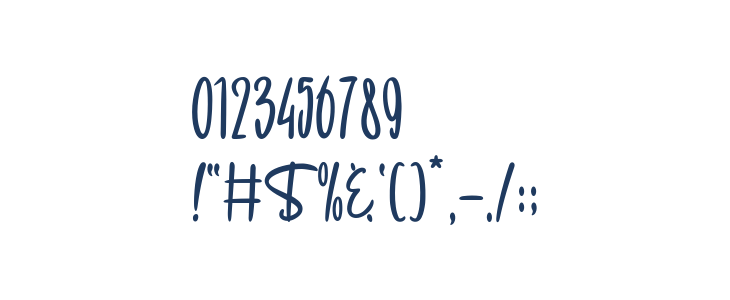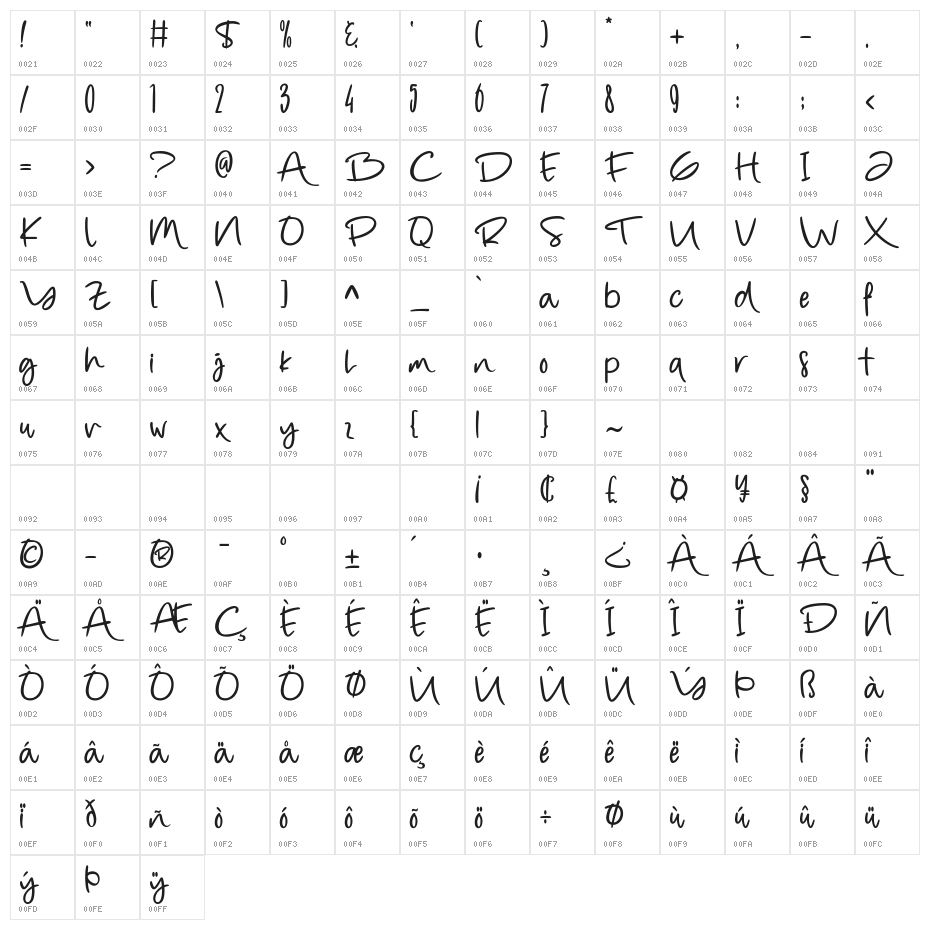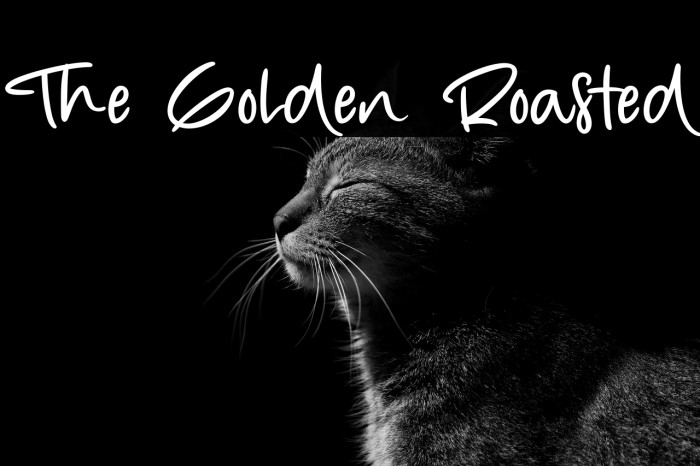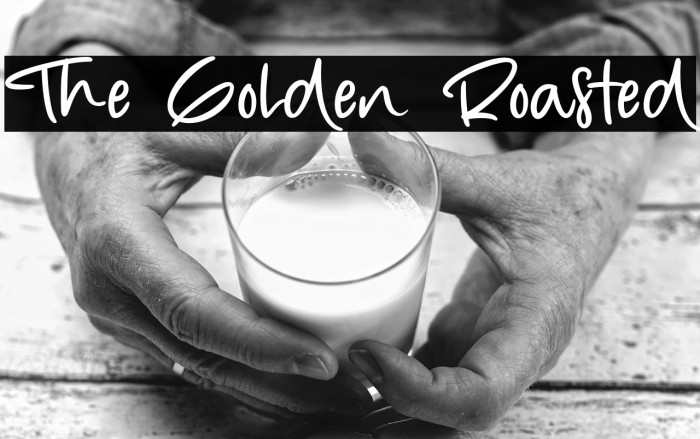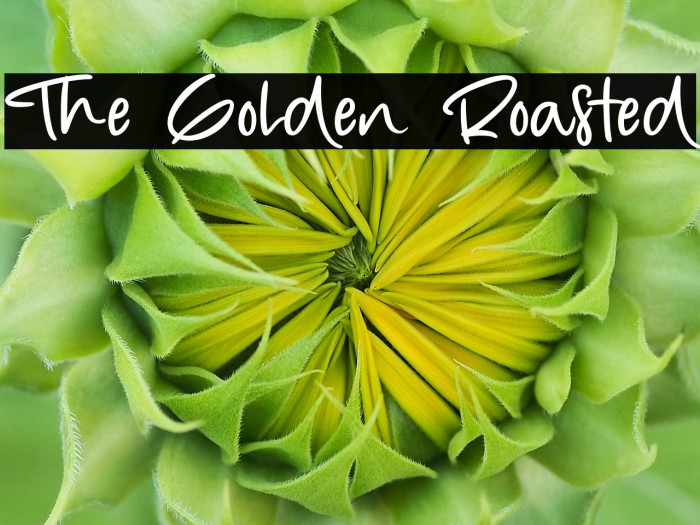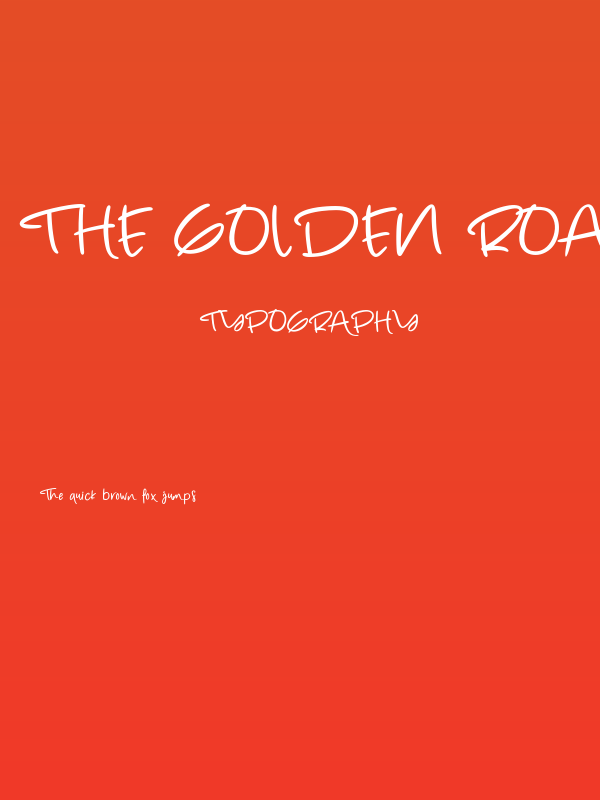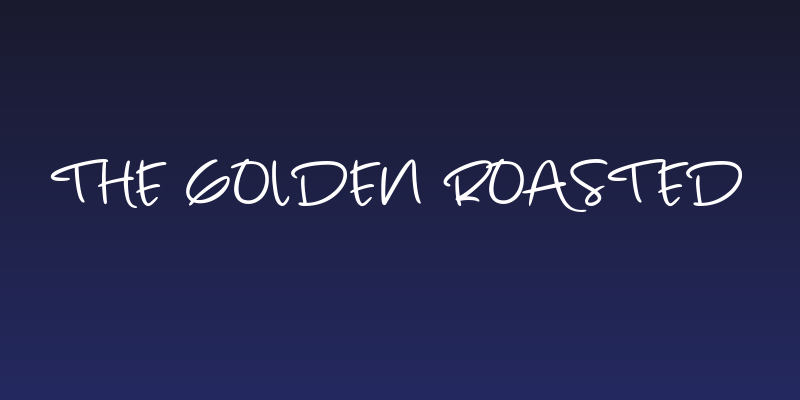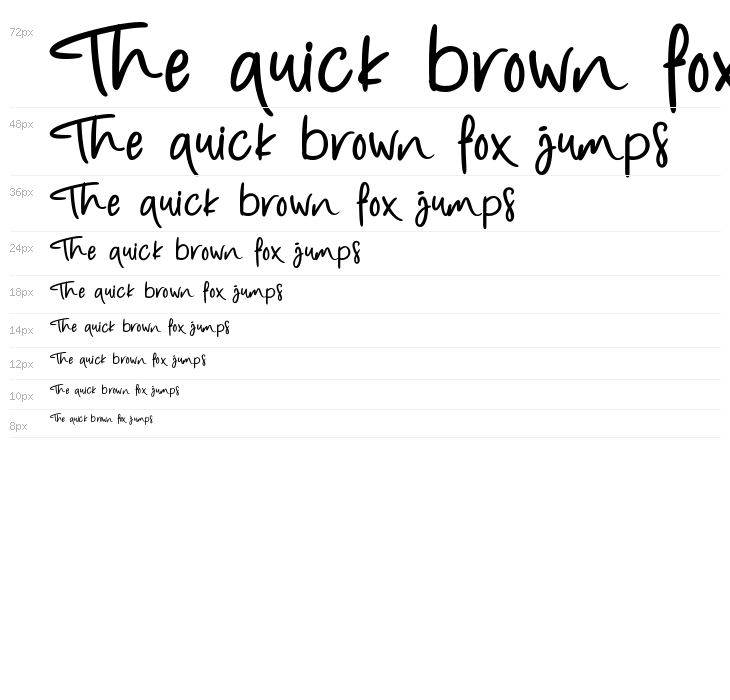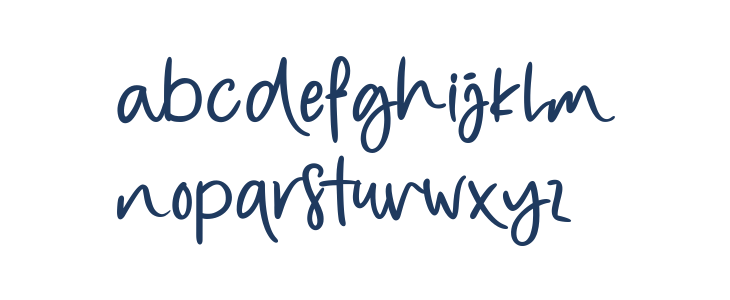
The Golden Roasted Font
The Golden Roasted Description
This font features a playful and casual handwritten style, characterized by its flowing and connected letterforms. The strokes are smooth and slightly irregular, giving it a personal and informal touch. The uppercase letters are bold and expressive, while the lowercase letters maintain a consistent rhythm with a slight slant, enhancing the handwritten feel. The numerals are clear and legible, matching the overall style of the alphabet. Special characters are included, maintaining the same playful aesthetic. This font is versatile, suitable for projects that require a personal or creative touch.